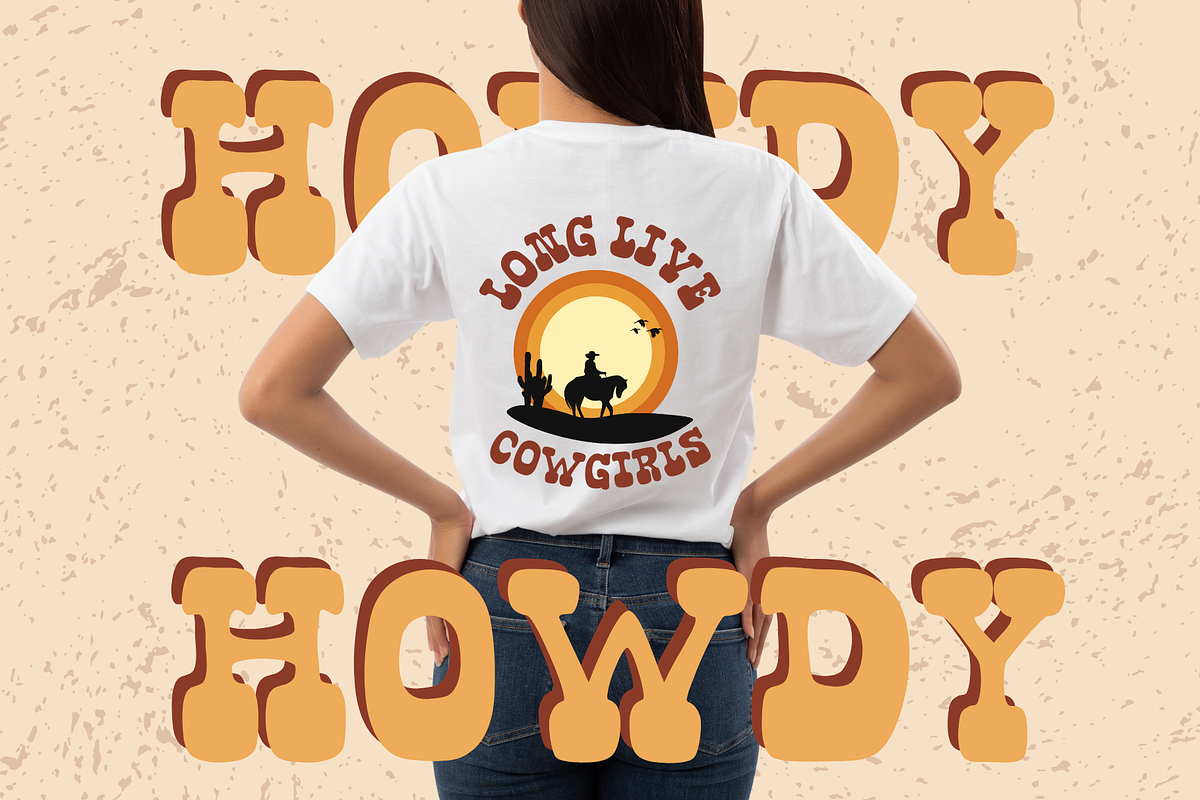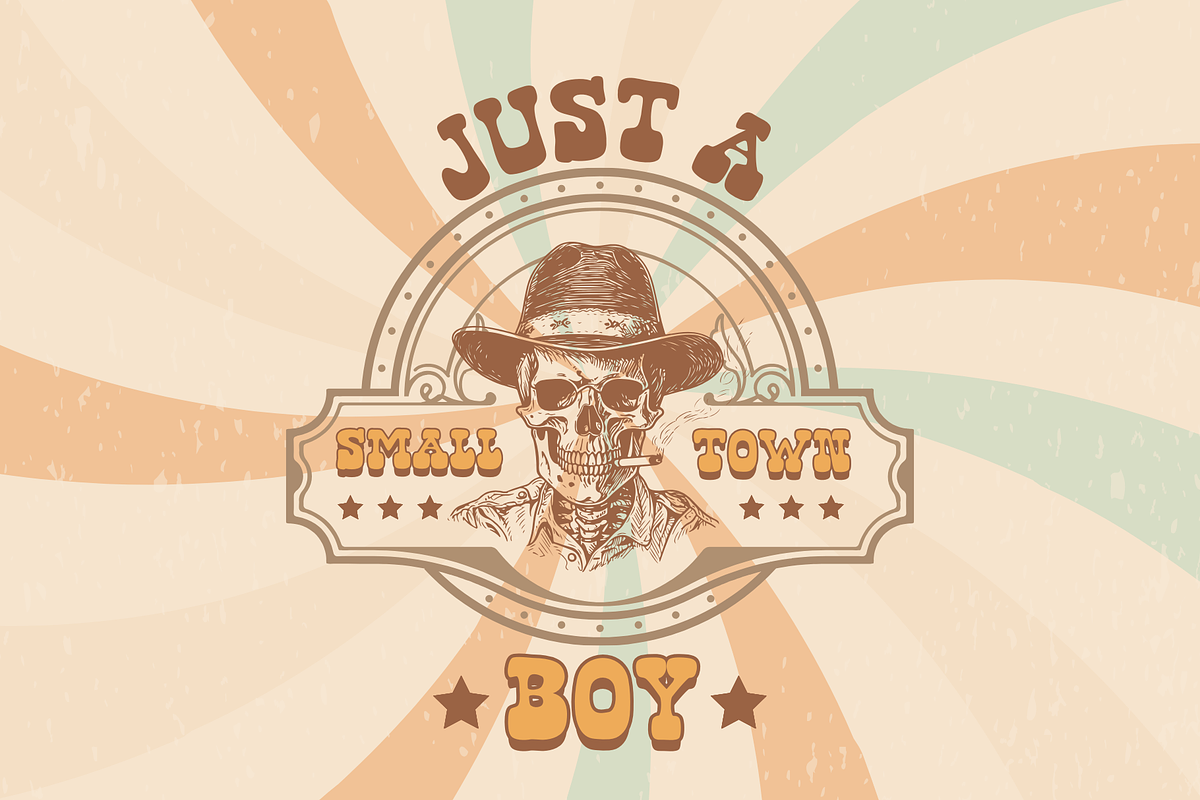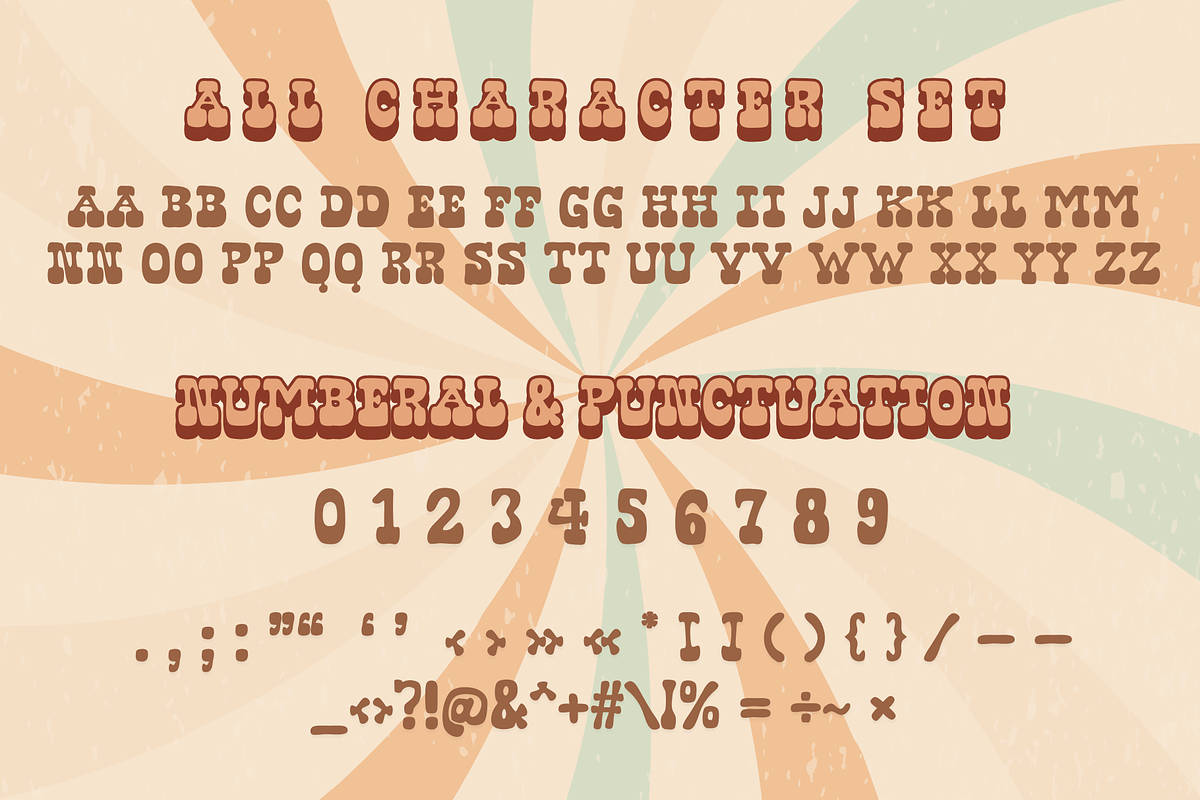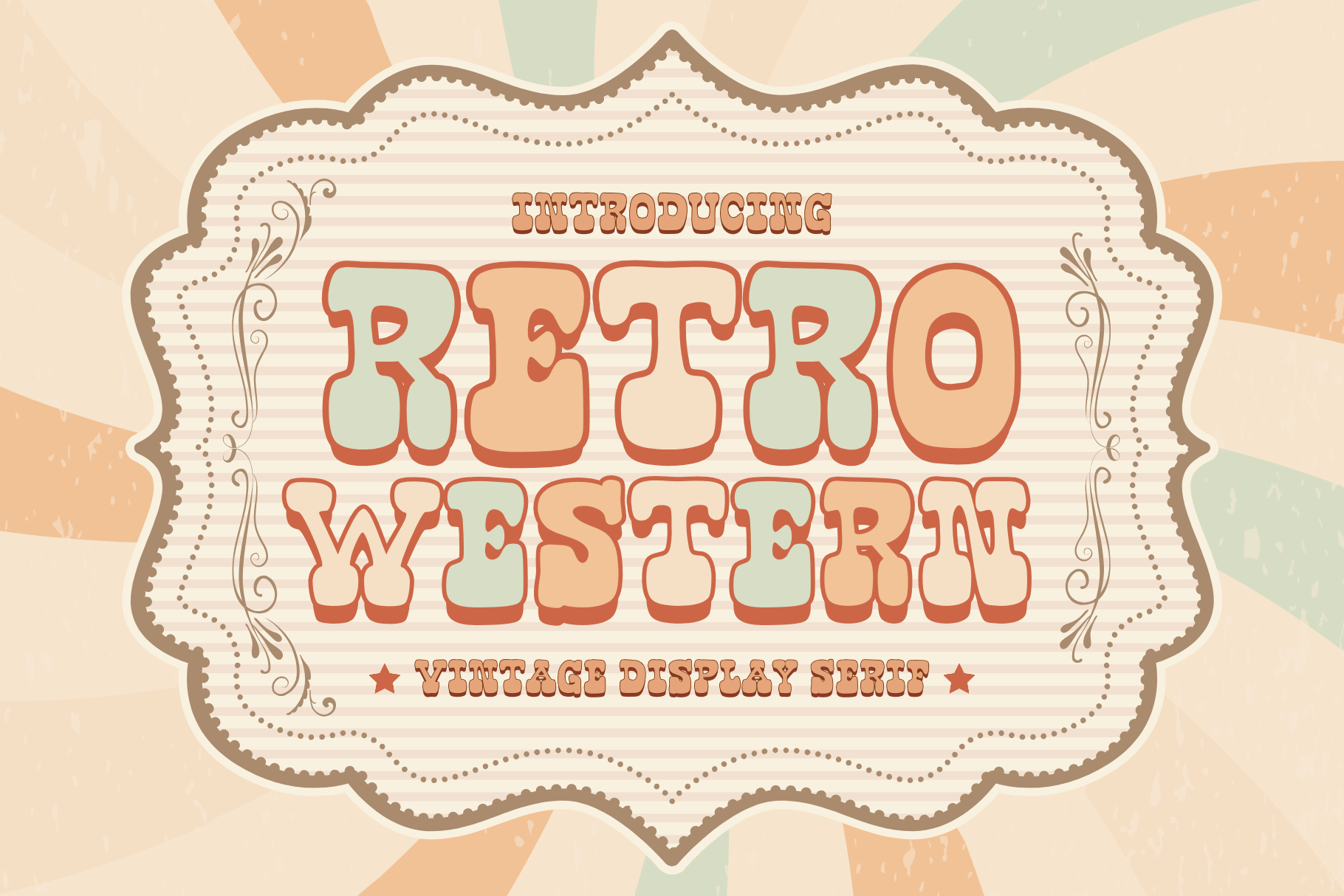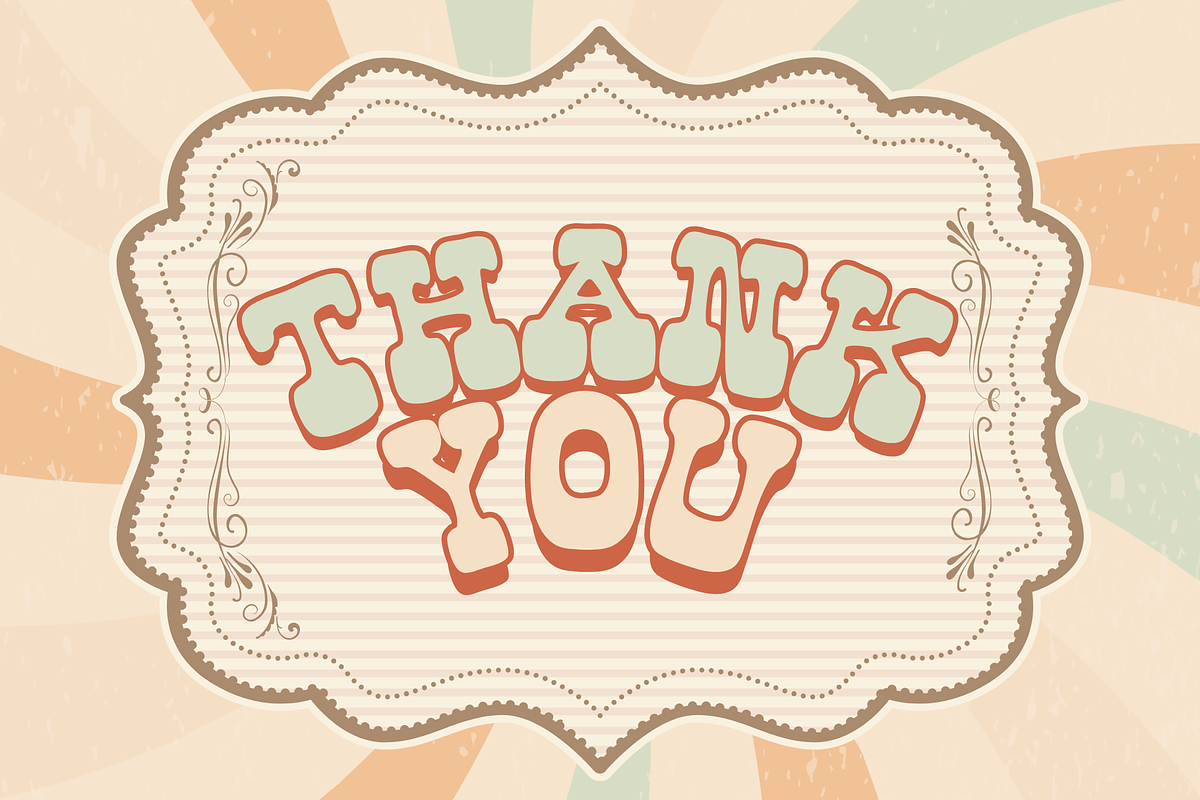
Retro Western is a Western font
Retro Western is a Western display font. It embodies playfulness and authenticity and is the perfect choice for all your favorite projects, including blog posts, logos, branding, ads, invitations, greeting cards, planners, photo albums, decorations, and more. Add it to any of your designs, and enjoy the results!